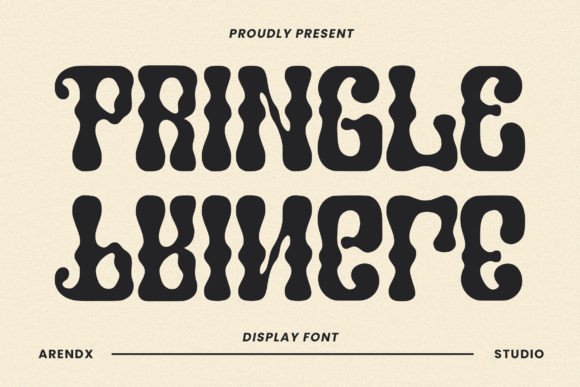
Unleash the vibrancy of your creativity with Pringle Font, the ultimate display font that embodies the essence of modern urban art. Inspired by the raw energy of graffiti, this font is not just a collection of letters; it's a gateway to a world of limitless expression.
Step into the world of Pringle Font, where each character dances with an untamed spirit, bursting with individuality and personality. Designed to leave an indelible mark, this font is perfect for those who dare to break free from the mundane and embrace the extraordinary.
Dive into a world where your words take on a life of their own, captivating audiences with their boldness and charisma. Whether you're a seasoned designer or just starting your creative journey, Pringle Font is your passport to a world of boundless possibilities.
With Pringle Font as your creative ally, you'll unlock the power to transform ordinary designs into captivating masterpieces. Its versatility knows no bounds, making it the perfect choice for a wide array of projects, from eye-catching posters and flyers to unique t-shirt designs and social media graphics.
Feel the thrill of bringing your imagination to life as you effortlessly create logos that resonate with your audience, leaving a lasting impression that lingers in their minds. Pringle Font is not just a font; it's an invitation to embark on a creative adventure, where every design is a chance to leave your unique mark on the world.
Don't settle for ordinary fonts that blend into the background. Choose Pringle Font, the font that ignites passion, sparks creativity, and turns your designs into unforgettable experiences. Let your words dance with unrestrained energy, captivating audiences with every stroke and curve.
With Pringle Font, you hold the key to unlocking a world of boundless creativity. Embrace the untamed spirit of urban art and watch your designs transform into captivating masterpieces. Unleash your imagination and let Pringle Font guide you on a journey of self-expression that knows no limits.